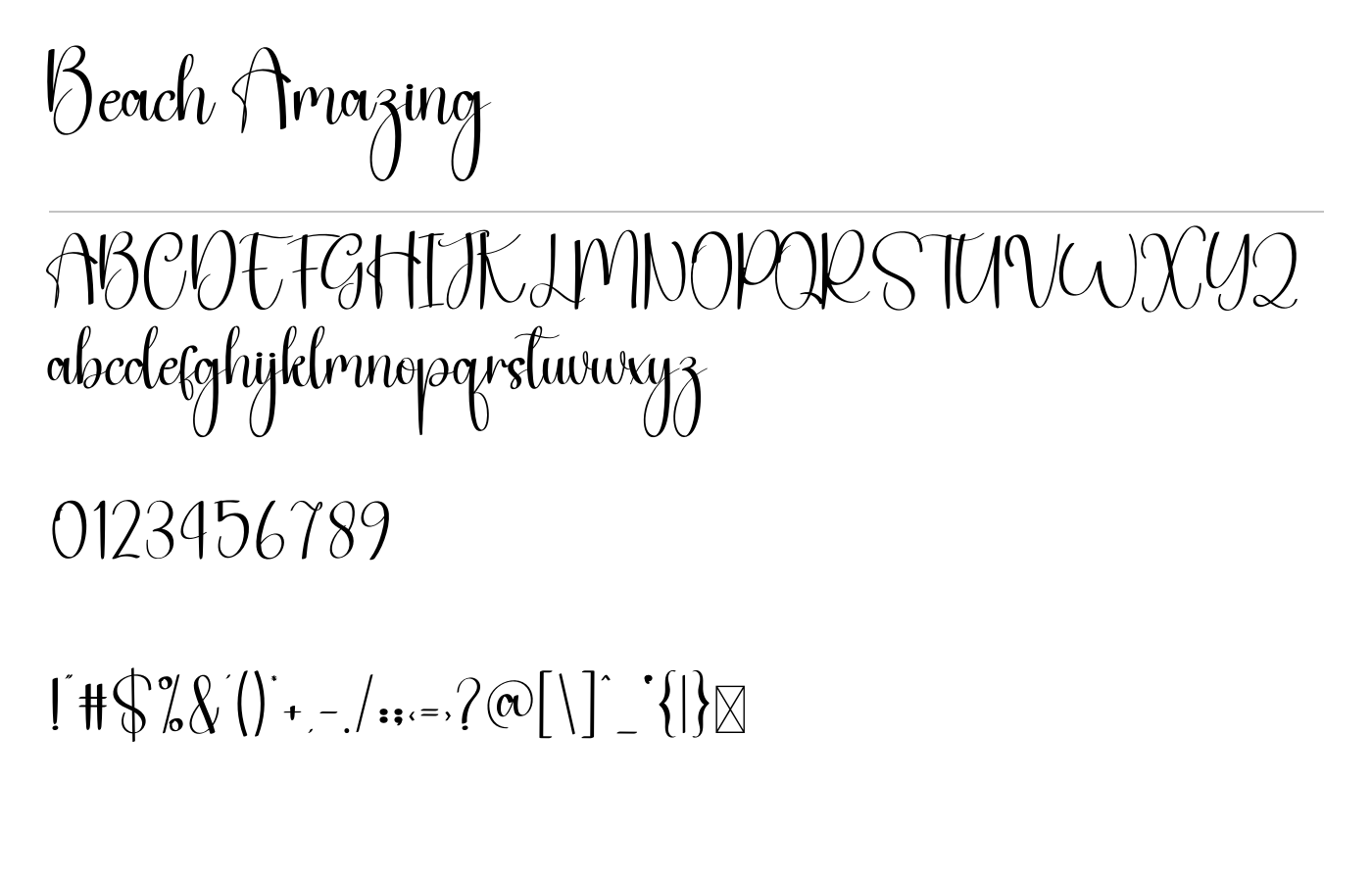
Beach Amazing is a playful and elegant script font with a hand-lettered feel, featuring tall, narrow letterforms and graceful, flowing strokes. Its thin lines and whimsical curls give it a delicate, stylish look perfect for creative branding, invitations, and fashion-related designs. This font works well in headlines and decorative text where a charming, handcrafted vibe is desired.
Beach Amazing Font
About Beach Amazing Font